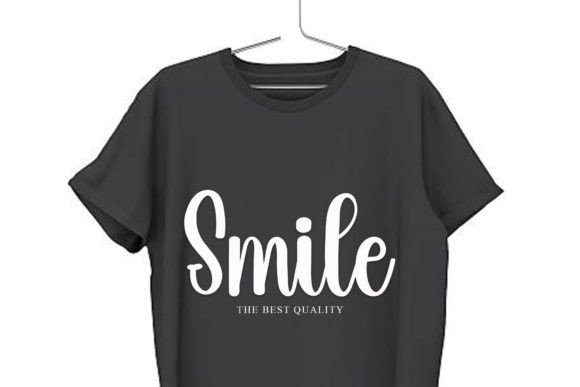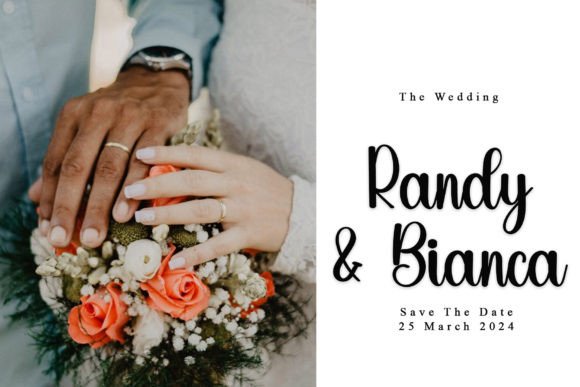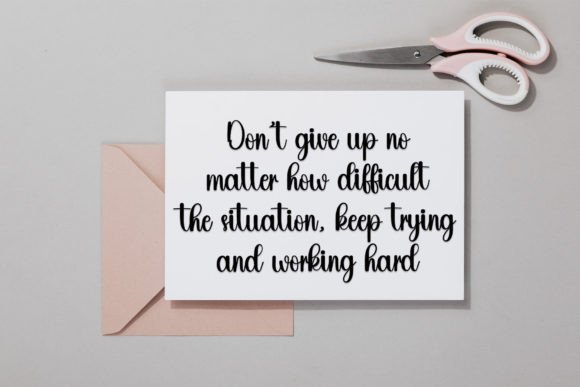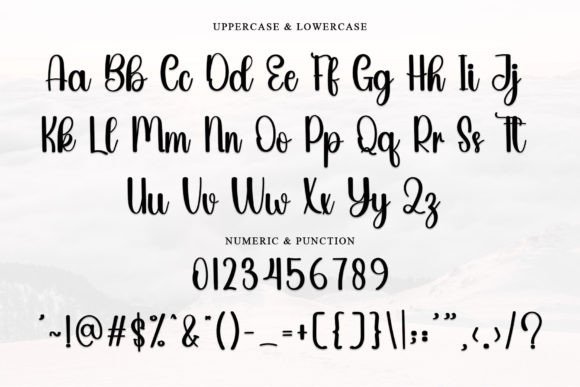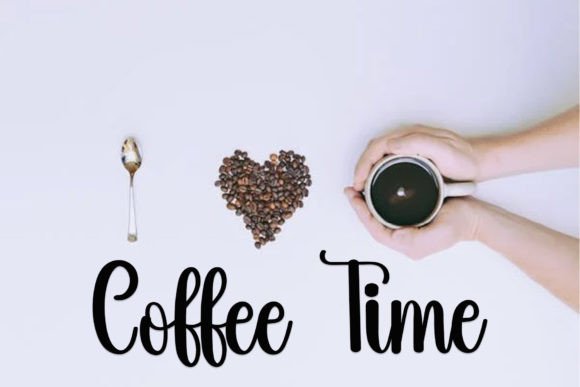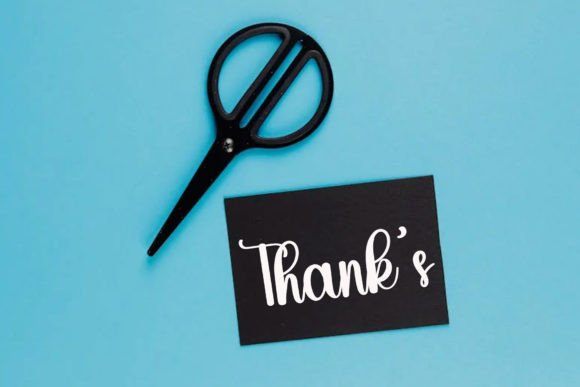
Introducing Beach Vacation Font: Elevate Your Designs with Elegance and Charm
Are you looking for a font that can add a touch of sophistication and warmth to your designs? Look no further than Beach Vacation Font, a stylish handwritten script font that exudes elegance and charm. With its fluid strokes and natural flow, this captivating font is perfect for designers and crafters who want to create beautiful and eye-catching designs.
The Characteristics of Beach Vacation Font
Beach Vacation Font is a unique and stylish handwritten script font that is characterized by its fluid strokes and natural flow. The font’s elegant and charming design makes it perfect for adding a personal touch to invitations, branding, or social media. Its sophisticated look and feel can elevate any design, making it a great addition to your font collection.
Uses of Beach Vacation Font
Beach Vacation Font is a versatile font that can be used in a variety of design projects. Here are some of the ways you can use this beautiful font:
- Invitations: Use Beach Vacation Font to create beautiful and elegant invitations for weddings, parties, and other special events.
- Branding: Add a personal touch to your brand with Beach Vacation Font. Use it to create logos, business cards, and other marketing materials.
- Social Media: Use Beach Vacation Font to create eye-catching social media graphics, quotes, and posts.
- Crafting: Beach Vacation Font is perfect for crafters who want to add a personal touch to their projects. Use it to create beautiful journal entries, scrapbook pages, and other handmade crafts.
Why Choose Beach Vacation Font?
There are many reasons why Beach Vacation Font is a great choice for designers and crafters. Here are some of the benefits of using this font:
- Elegant and Charming: Beach Vacation Font has an elegant and charming design that can add a touch of sophistication to any design.
- Versatile: This font is versatile and can be used in a variety of design projects.
- Easy to Read: Beach Vacation Font is easy to read, making it perfect for body text and headlines.
- Unique: Beach Vacation Font is a unique font that can help you stand out from the crowd.
Tips for Using Beach Vacation Font
Here are some tips for using Beach Vacation Font in your designs:
- Pair it with Other Fonts: Beach Vacation Font looks great when paired with other fonts. Try pairing it with a bold font for a striking contrast.
- Use it for Headlines: Beach Vacation Font is perfect for headlines and titles. Use it to create eye-catching headings that grab attention.
- Add a Personal Touch: Beach Vacation Font is perfect for adding a personal touch to your designs. Use it to create beautiful and unique designs that reflect your personality.
Beach Vacation Font is a beautiful and elegant handwritten script font that can add a touch of sophistication and warmth to any design. With its fluid strokes and natural flow, this captivating font is perfect for designers and crafters who want to create beautiful and eye-catching designs. Whether you’re creating invitations, branding materials, or social media graphics, Beach Vacation Font is a great choice. So why wait? Download Beach Vacation Font today and start creating stunning designs that reflect your unique style.